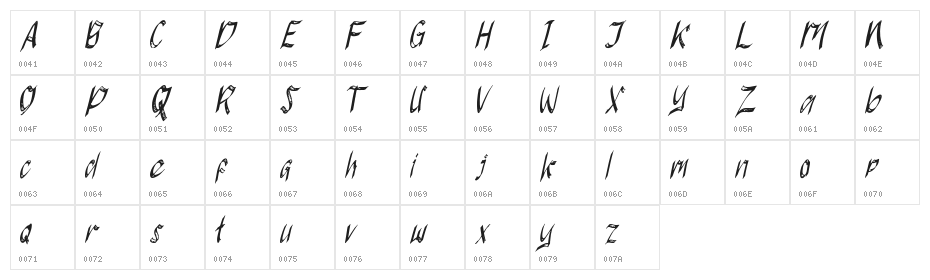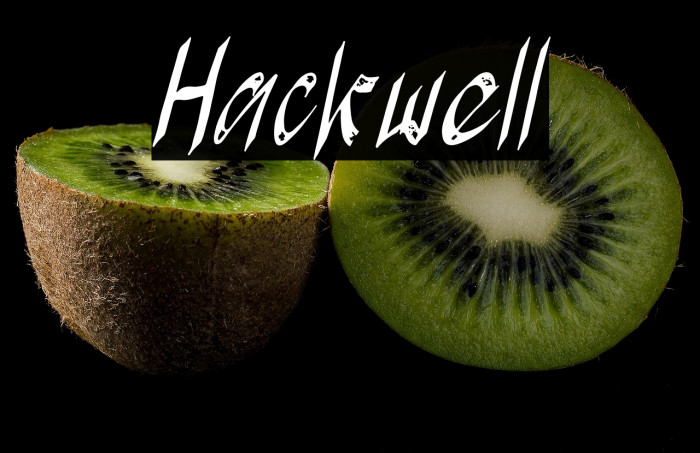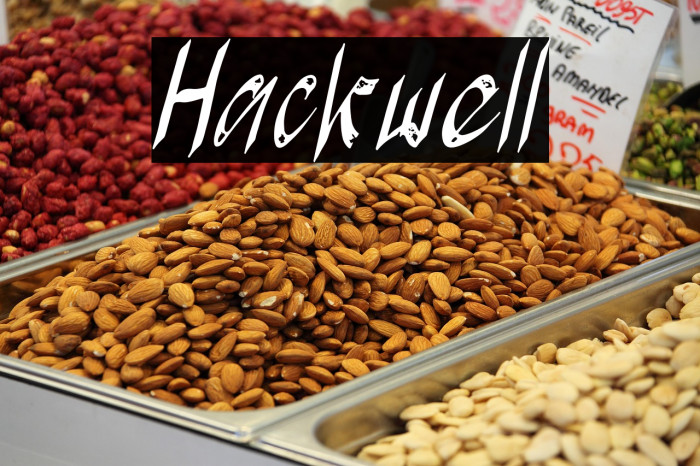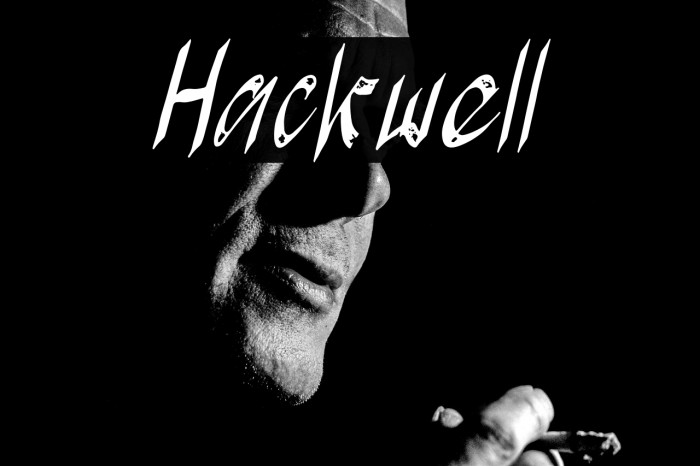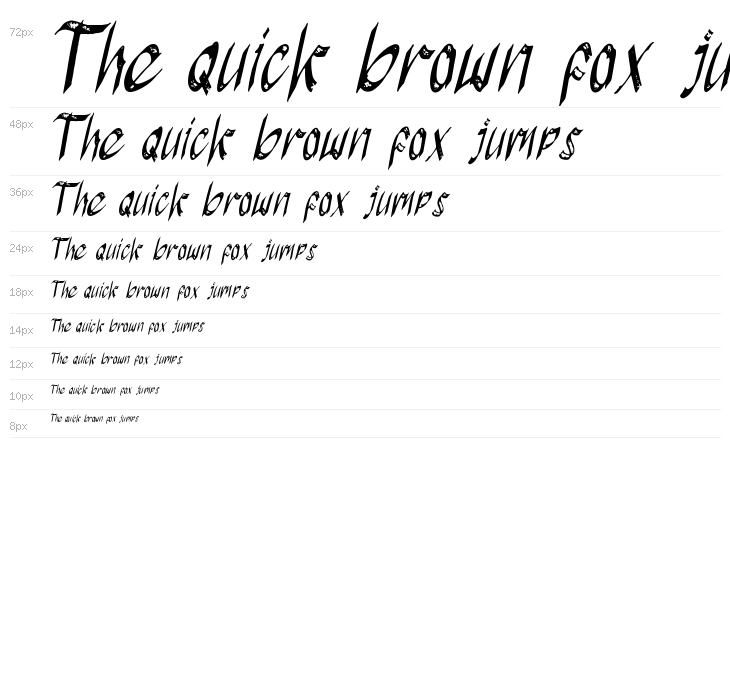
Hackwell Font
Hackwell Description
This font features a dynamic and edgy style, characterized by its sharp, angular strokes and distressed texture. The uppercase and lowercase letters exhibit a sense of movement and energy, with a hand-drawn appearance that adds a personal touch. The irregularities in the letterforms give it a unique, artistic flair, making it stand out in any design. The numerals and special characters maintain the same rough, textured look, ensuring consistency across all glyphs. This font is ideal for projects that require a bold and unconventional aesthetic.
| Overall Style | Modern, Artistic |
| Proposed Projects | Ideal for album covers, posters, branding for edgy or alternative products, and creative digital artwork. |